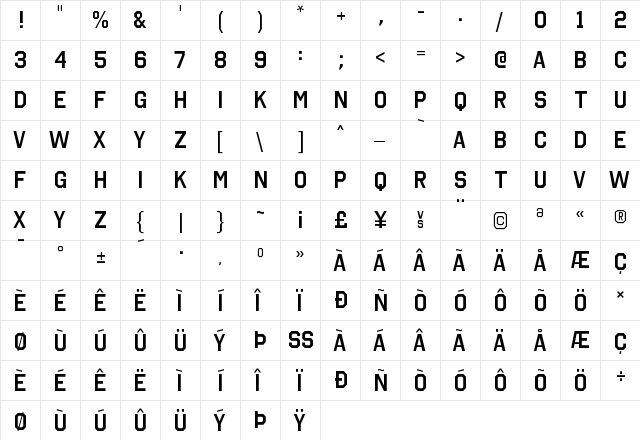
Octin College SemiBold
Design Context for Octin College Typeface
Octin College has the bold swagger of sports branding: strong, assertive letterforms designed to dominate headlines and jerseys alike. The heavy weight commands attention and anchors typographic hierarchies.
Built for sports team identities, athletic apparel, event posters, and high-energy promotional material.
Font Pairing: Use alongside a condensed or geometric sans for supporting copy — keep the pairing bold, functional, and free of ornament.
Pro Tip: Octin College thrives on contrast — try it large, bold, and tight against a clean background for maximum visual impact.